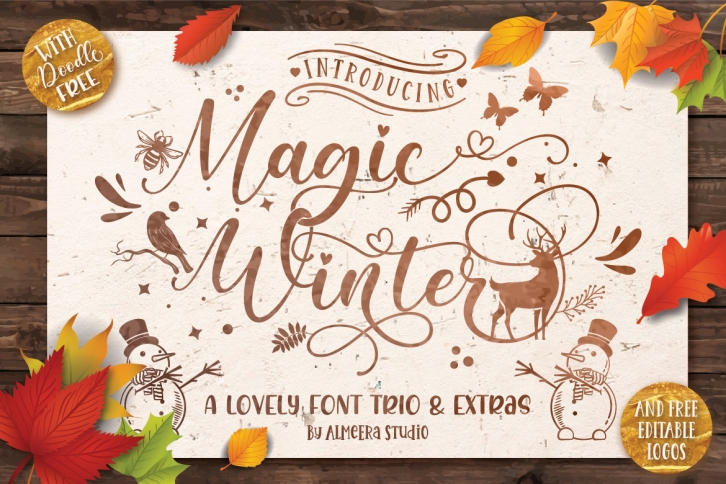
Magic Winter Font Trio & Extras Download
Magic Winter Trio & Extras is a beautiful font that was designed by Almeerastudio. It's a great choice for designers and creatives who need such a font. It was released on October 26, 2019 and the file size is 17.43 MB. Magic Winter Trio & Extras may give a more youthful, expressive and casual look to your project. It is a very beautiful, refined, elegant, and high-quality font.